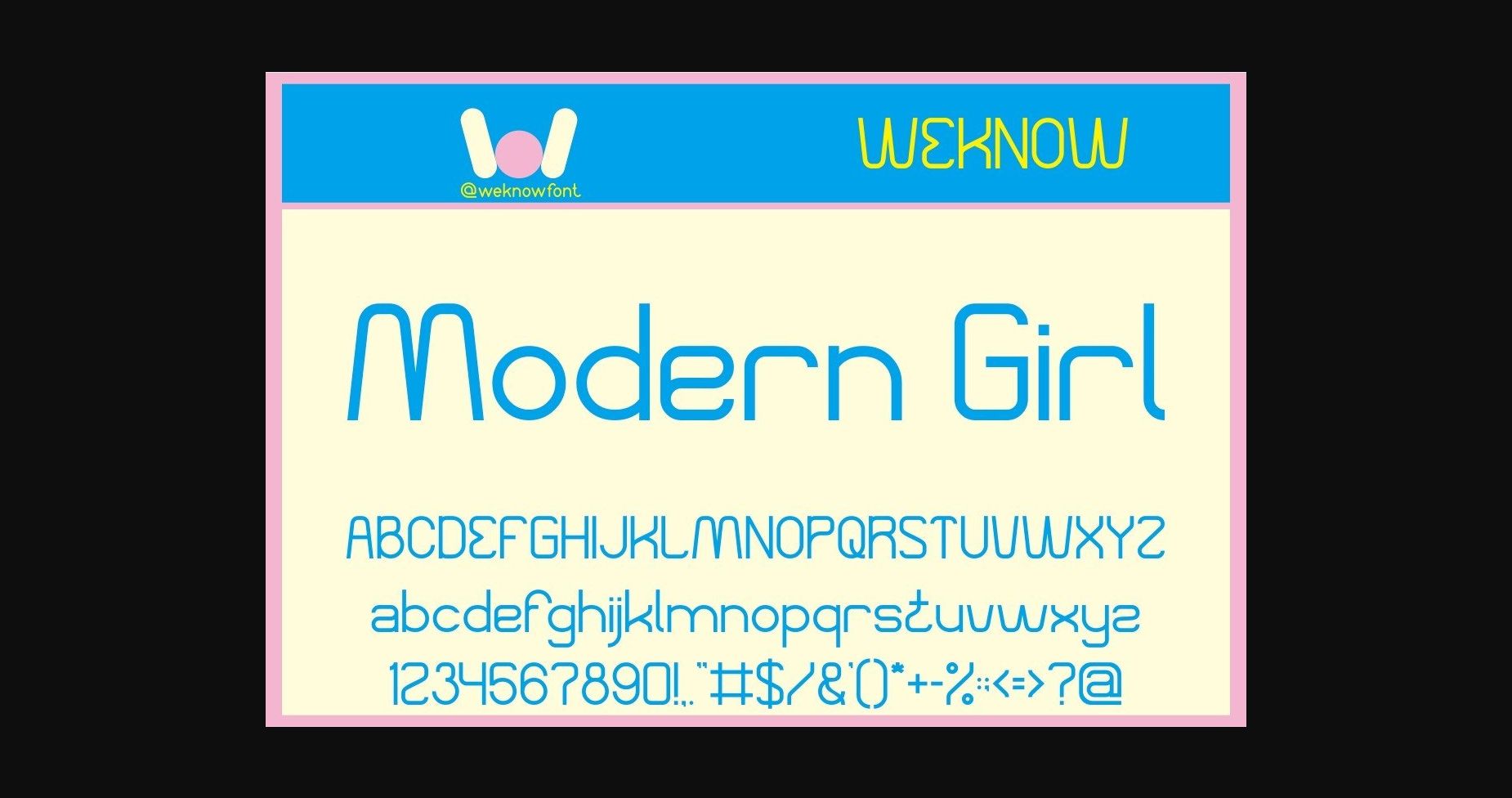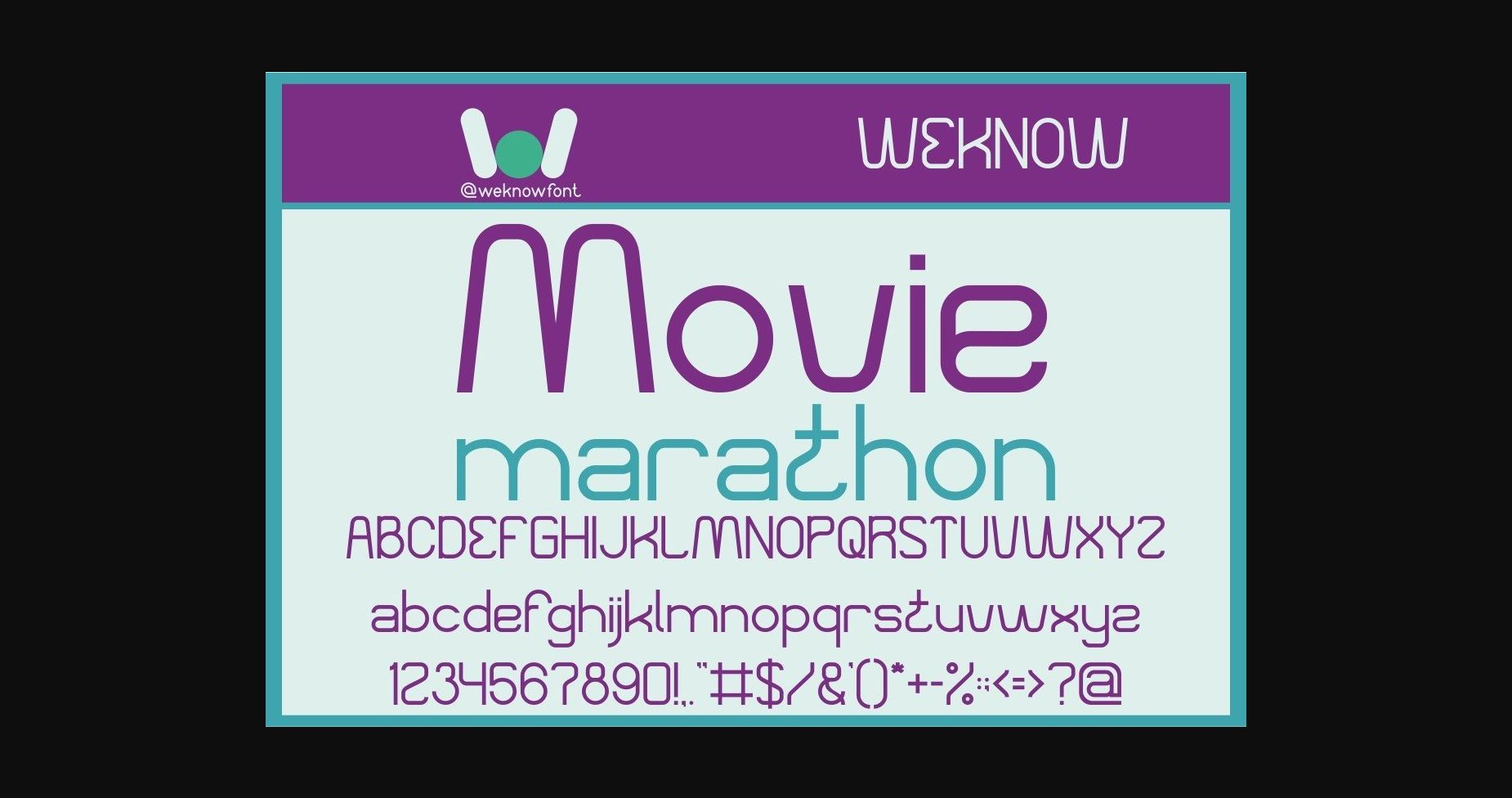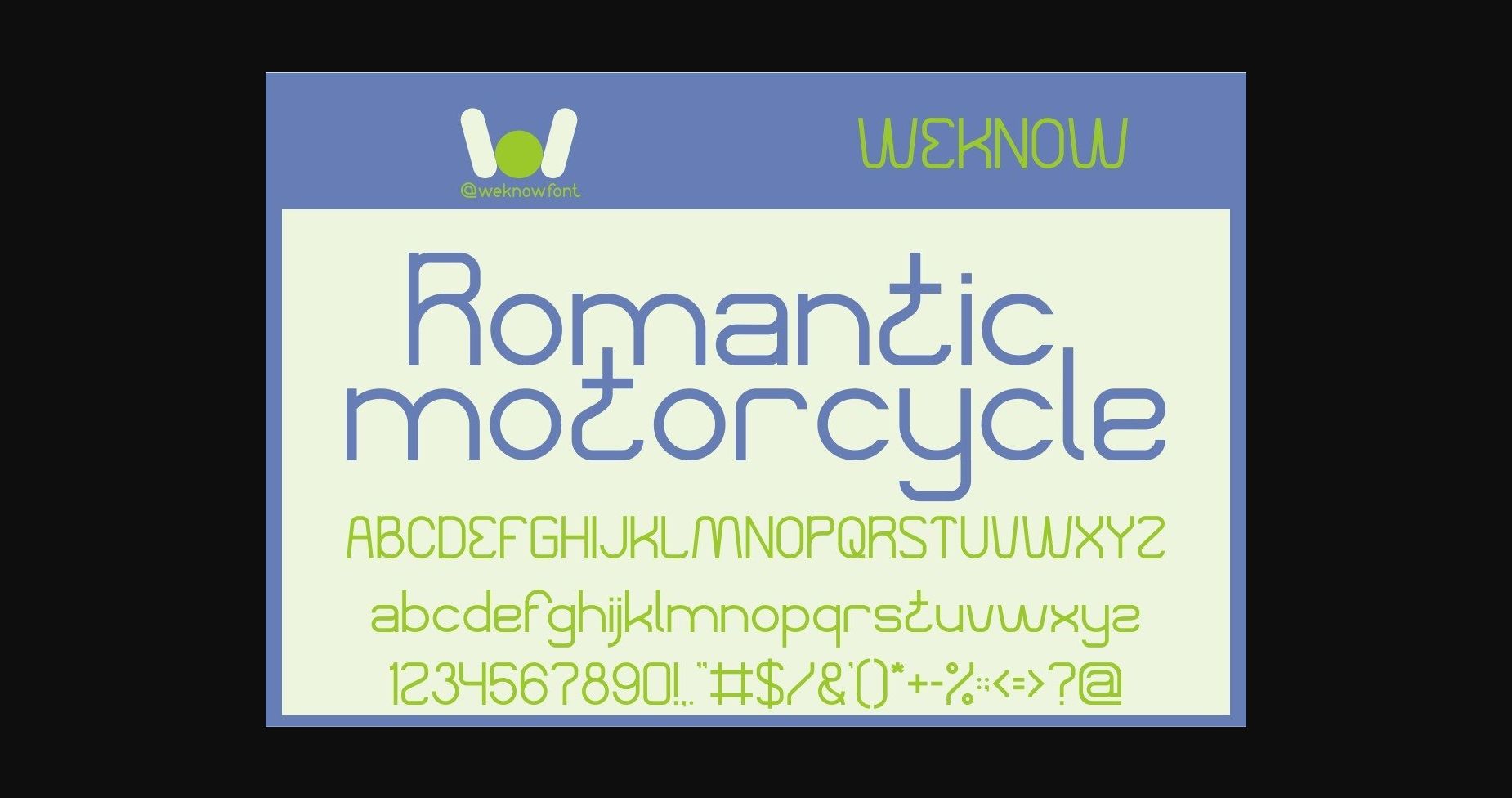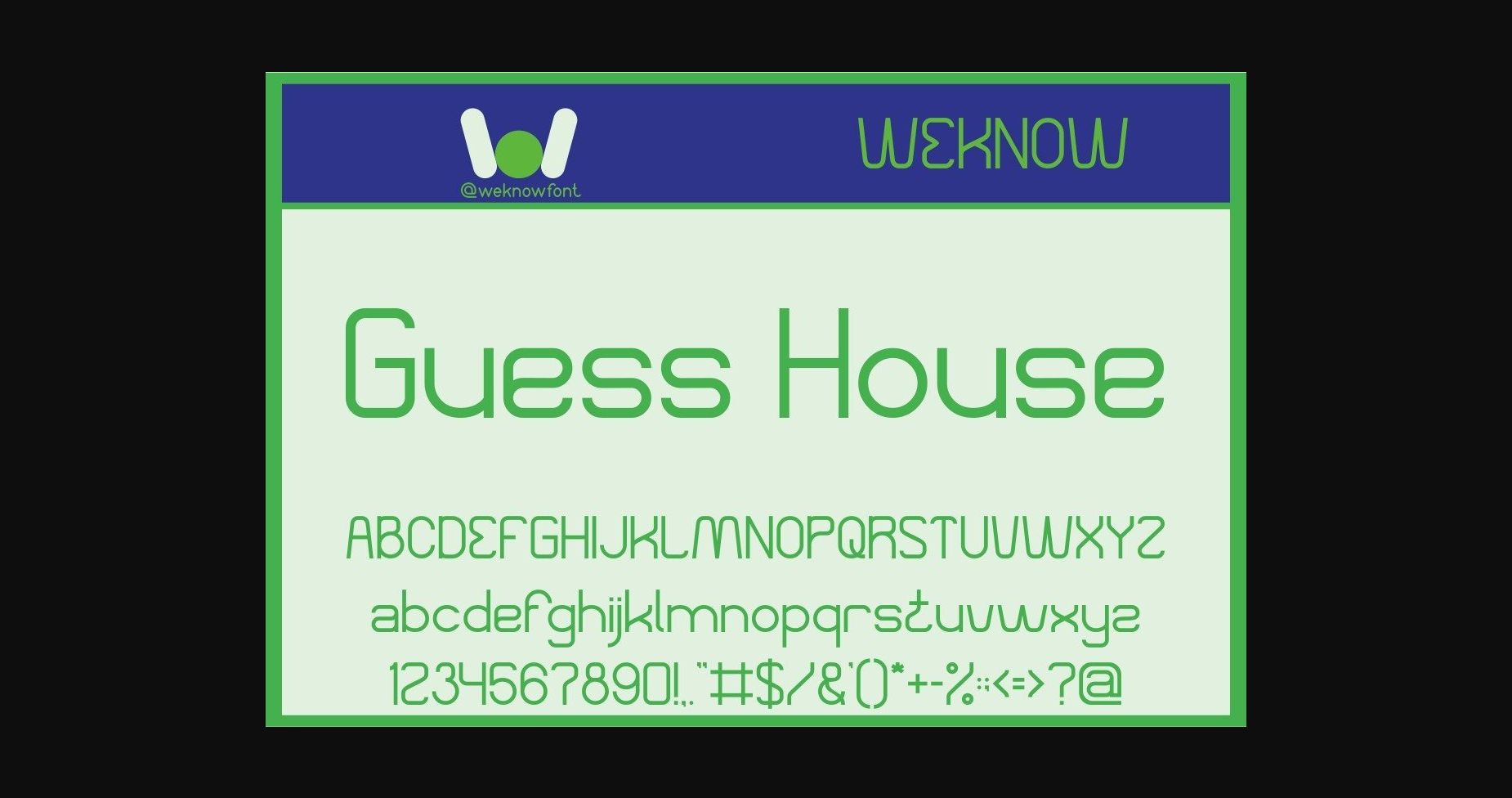
Modern Girl is a casual sans serif font. It has a classy, elegant, and modern look that can be used for logos, branding, invitations, stationery, wedding designs, social media posts, and much more!